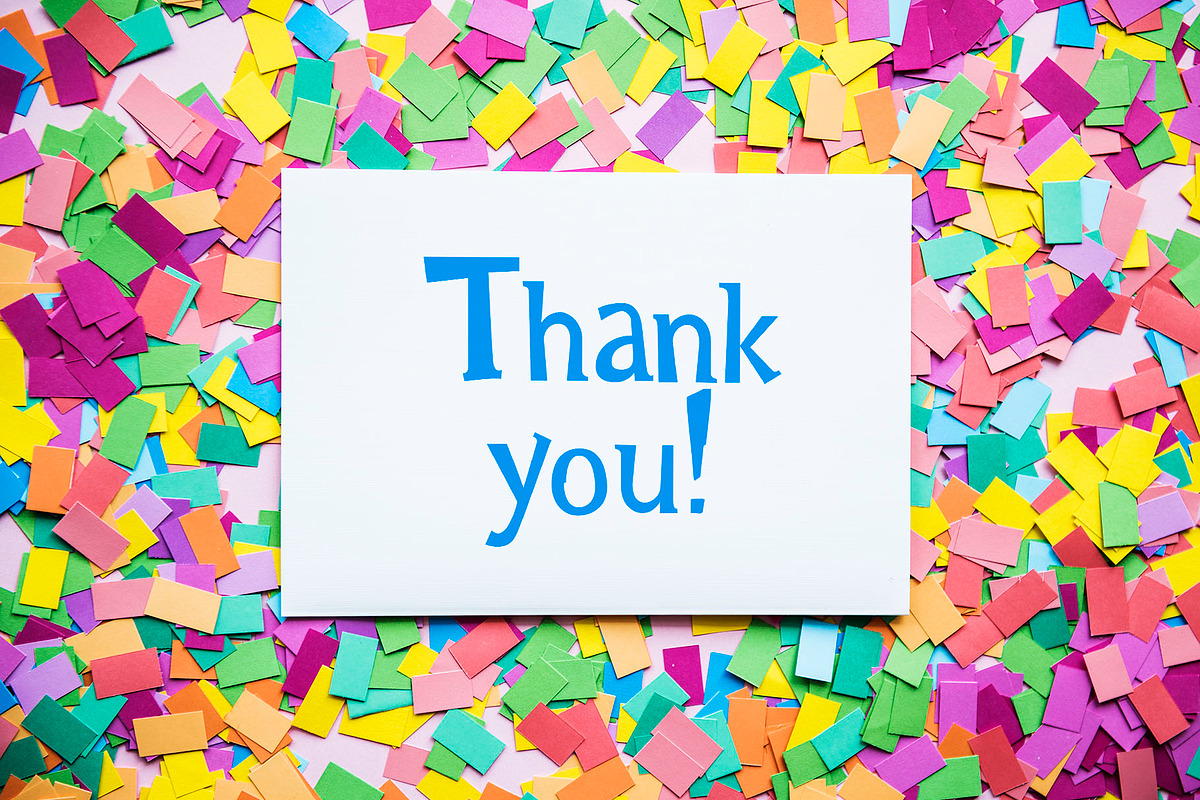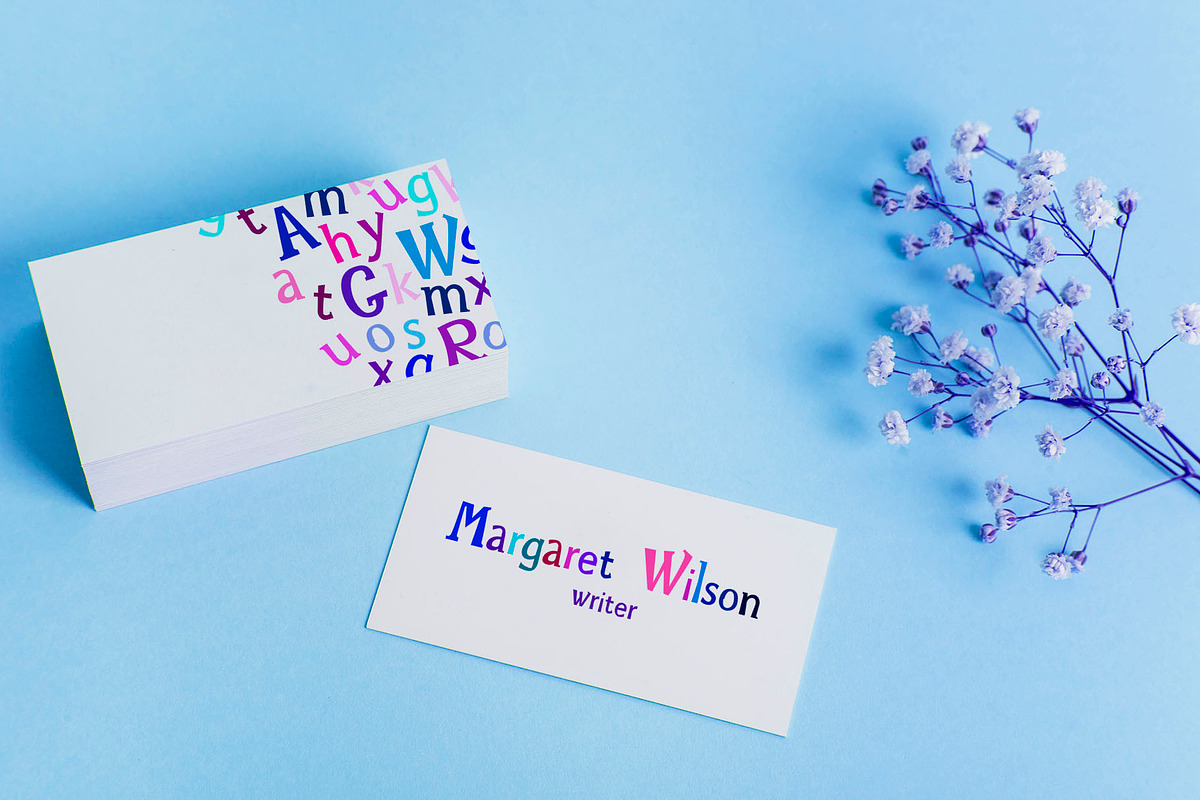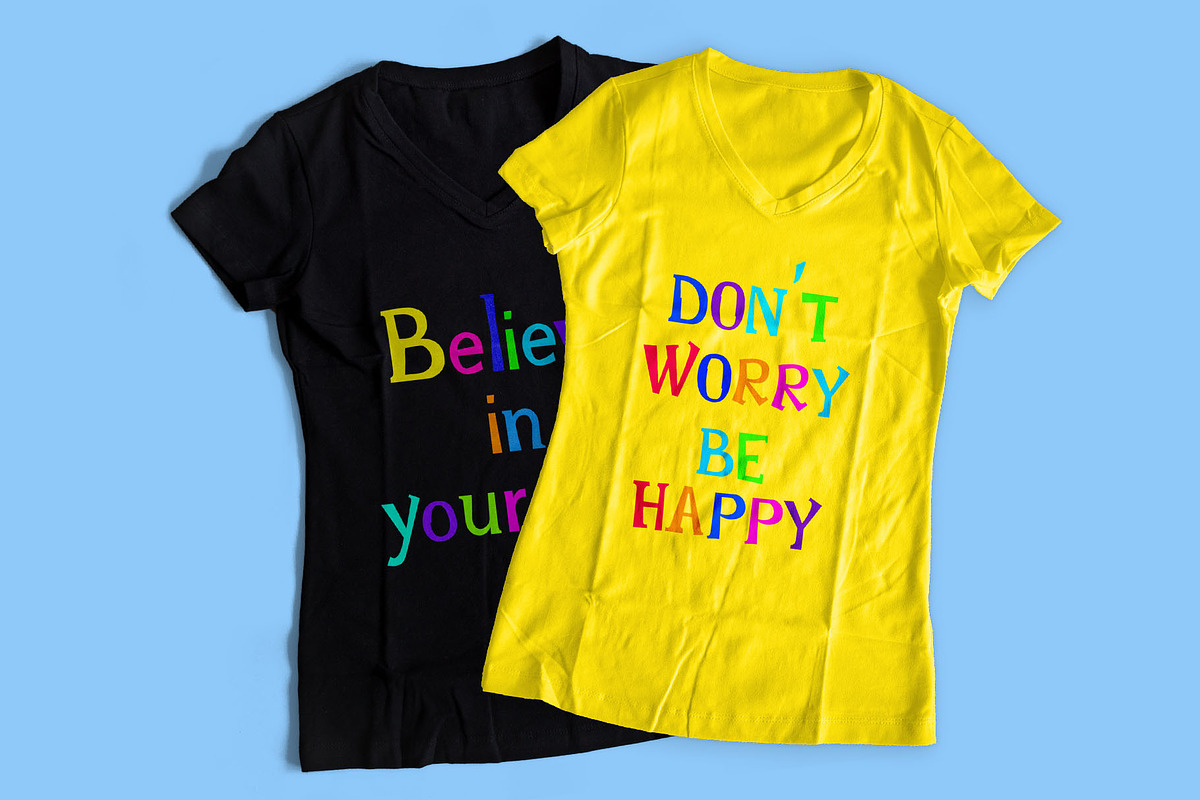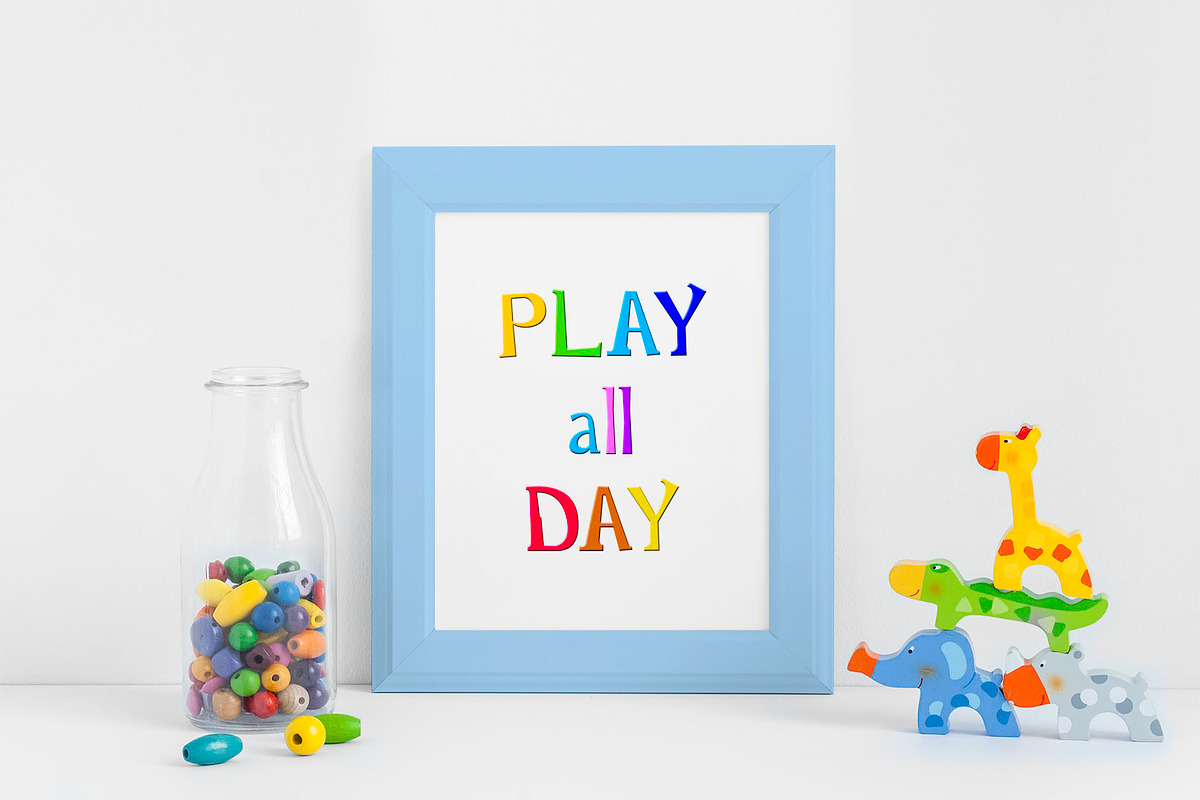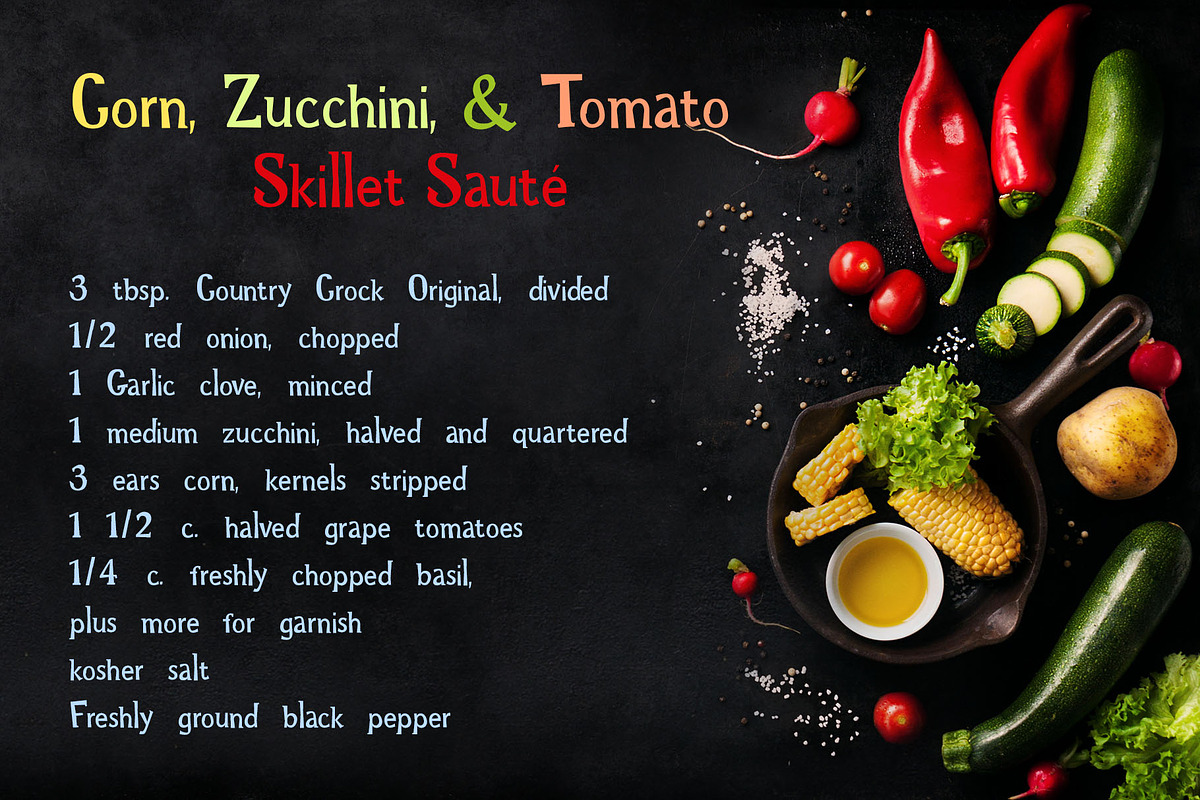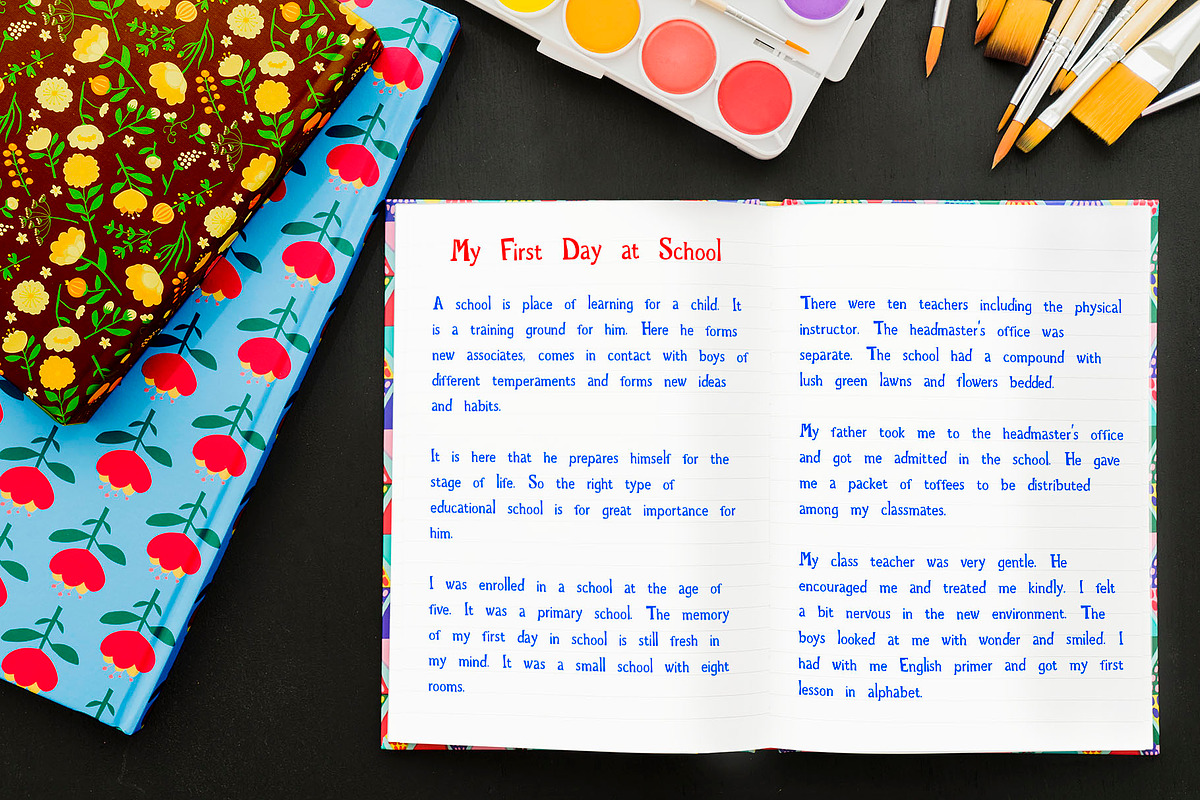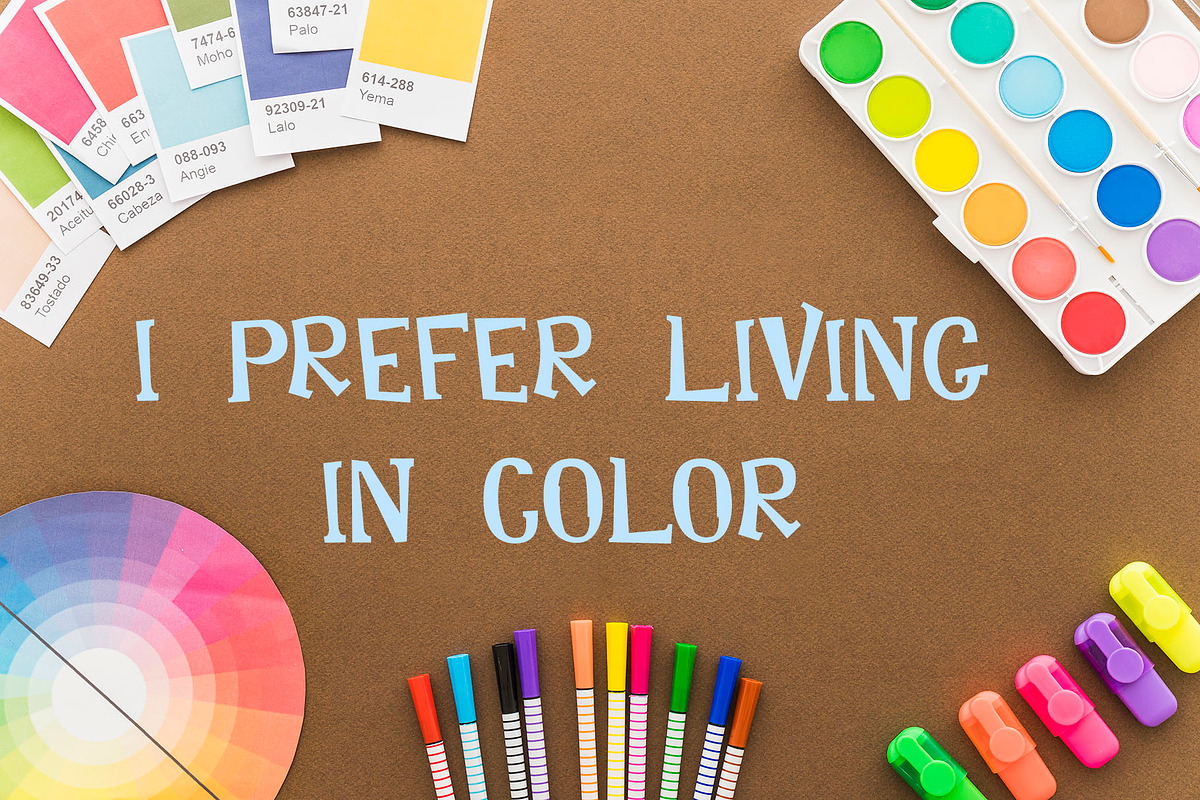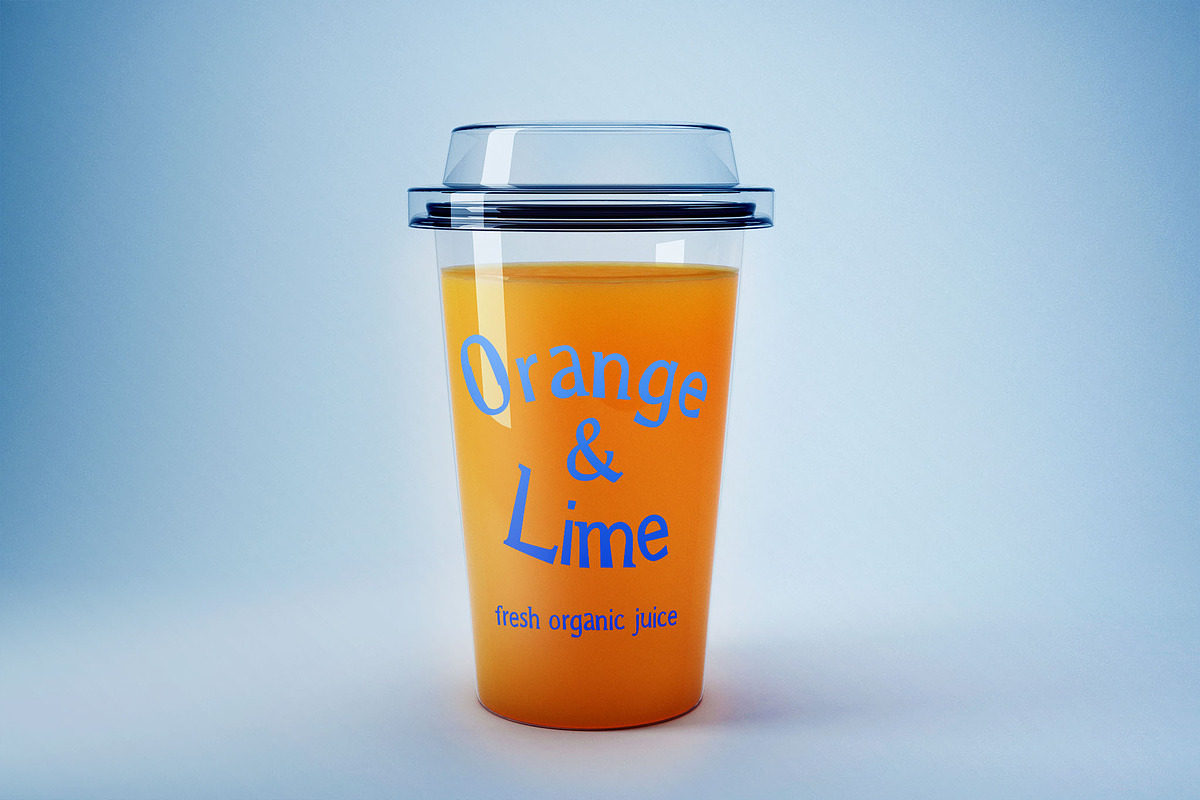
Rainbow Chalk Cyrillic font+Patterns
Rainbow Chalk Cyrillic is a playful serif fun kid's font and it contains uppercase and lowercase letters, a large range of numerals, and punctuation. The Rainbow Chalk font will be perfect for use in all your fun design projects be it logos, labels, packaging design, blog headlines. Also, it will look great on mugs, cards, kids' books headlines, or other typographic projects.
Multilingual Support for 33 languages: Afrikaans, Albanian, Basque, Bosnian, Catalan, Danish, Dutch, English, Estonian, Faroese, Filipino, Finnish, French, Galician, Indonesian, Irish, Italian, Malay, Norwegian Bokmål, Portuguese, Slovenian, Spanish, Swahili, Swedish, Turkish, Welsh, Zulu
And Cyrillic glyphs support for Russian, Belorussian, Bulgarian, Ukrainian, and Kazakh languages.